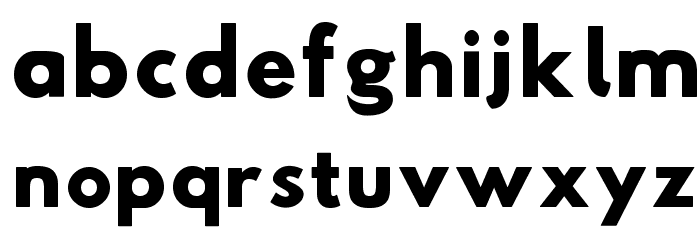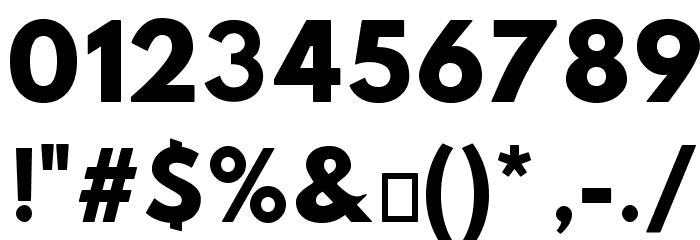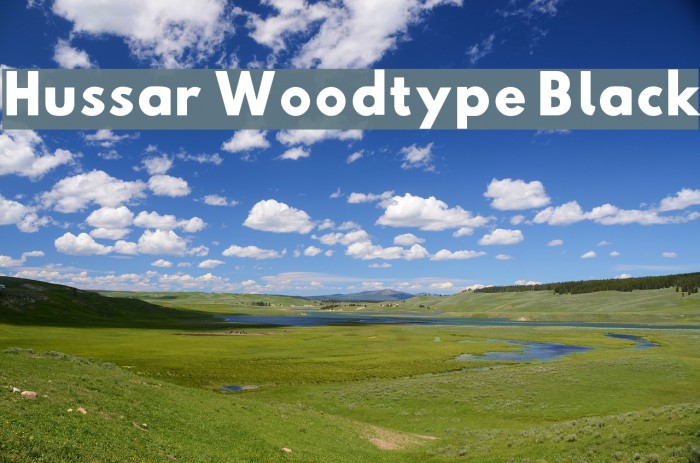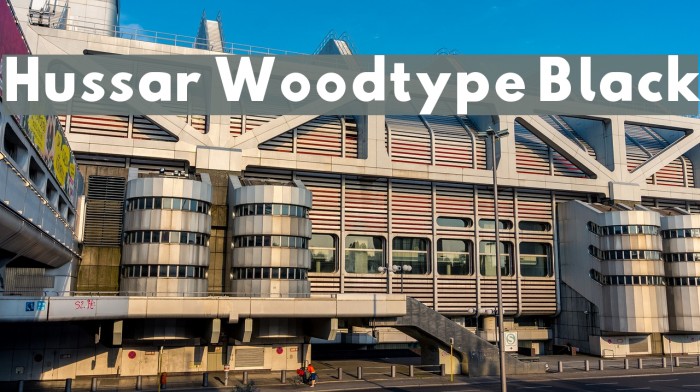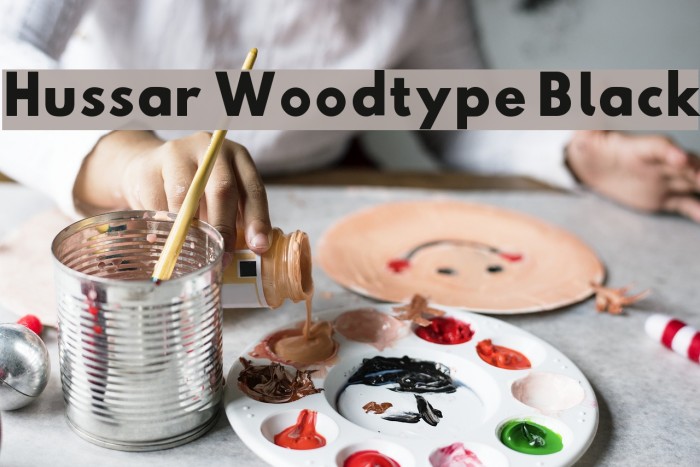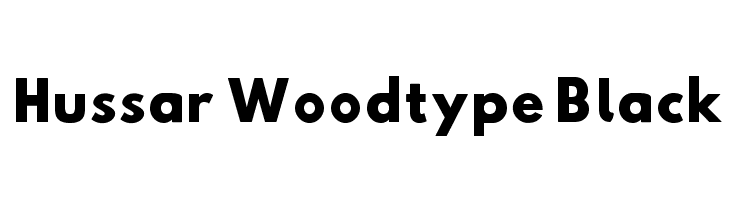
Hussar Woodtype Black Font
This font features bold, geometric letterforms with a strong presence, making it ideal for impactful designs. The uppercase and lowercase letters maintain a consistent weight, contributing to its robust appearance. The numerals are equally bold, ensuring readability and uniformity across different applications. Special characters are designed with the same boldness, providing a cohesive look throughout. The overall design is clean and modern, with a slight vintage touch reminiscent of traditional woodtype printing.
A bold, geometric font with a modern yet vintage woodtype aesthetic.
- Overall Style: Modern, Vintage